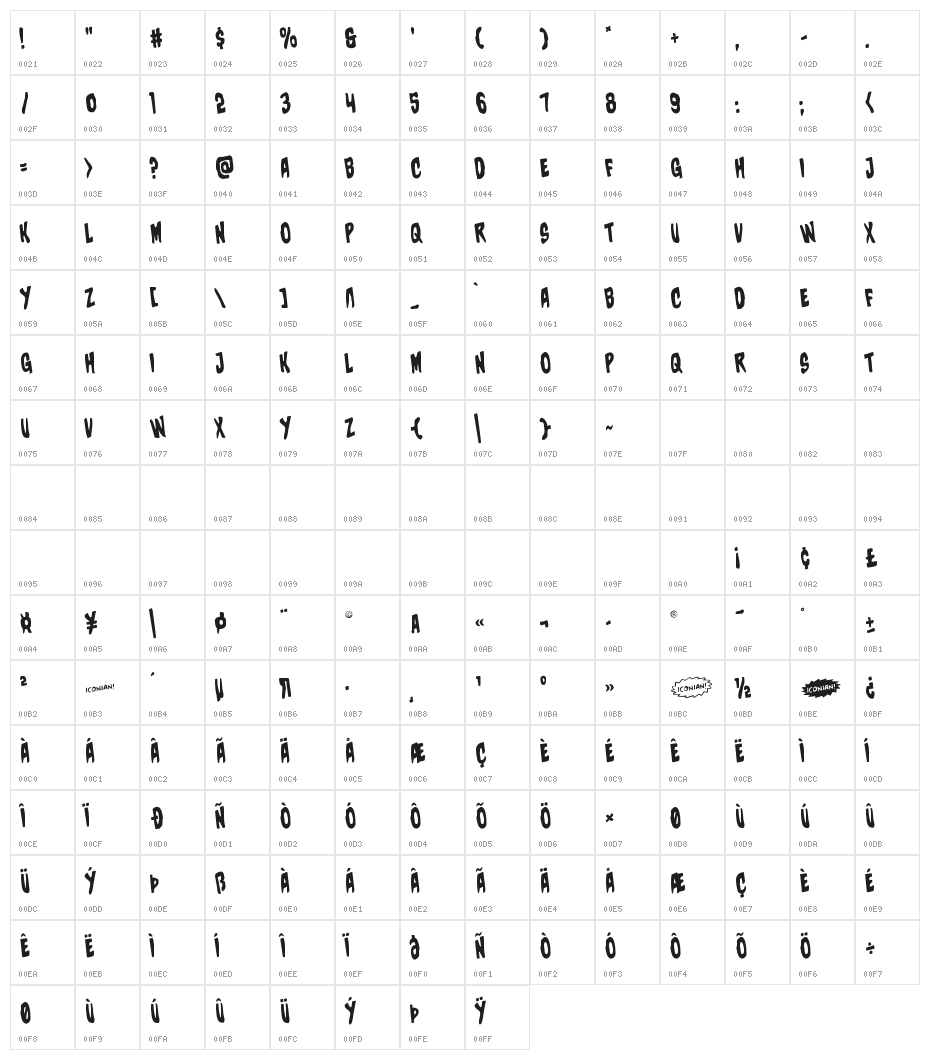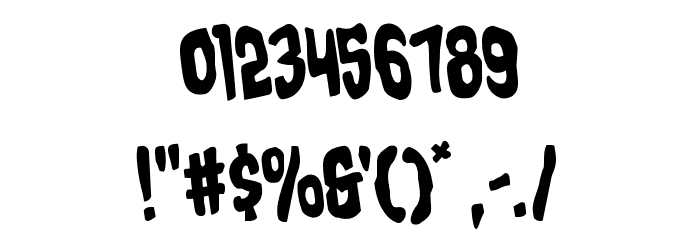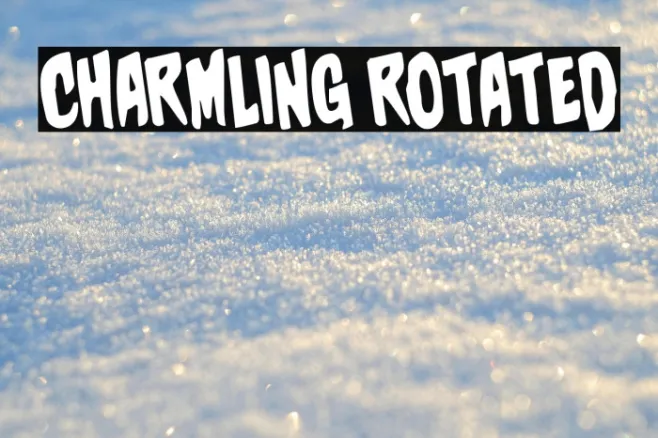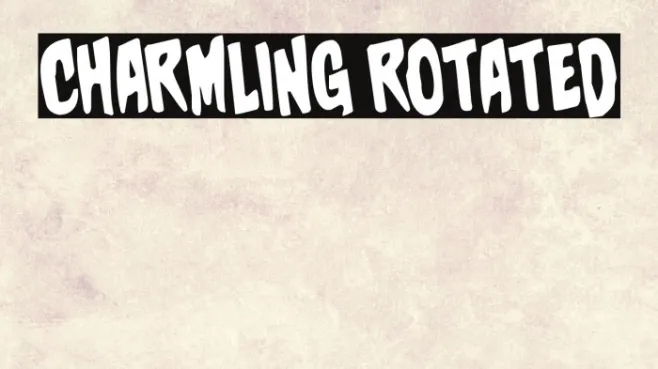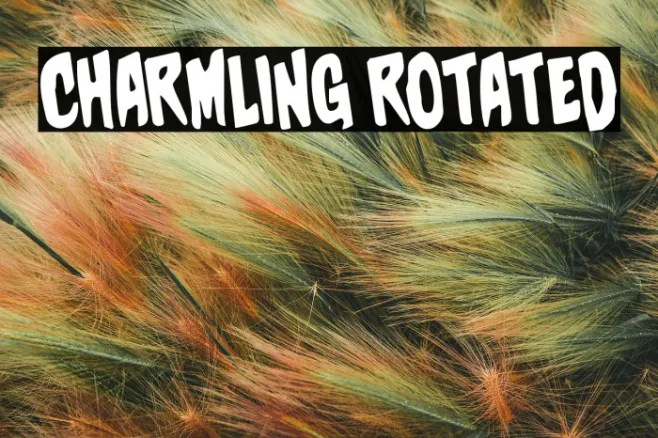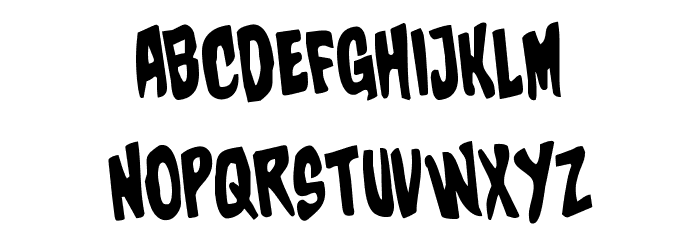
Charmling Rotated Font
Charmling Rotated Description
This font features a playful and dynamic style with a slightly irregular and hand-drawn appearance. The characters are bold and have a whimsical quality, making them stand out with a unique charm. The strokes are thick and rounded, giving the font a friendly and approachable feel. The letters are slightly tilted, adding to the casual and informal vibe. This font is well-suited for creative projects that require a touch of fun and personality. It maintains readability while offering a distinctive look that captures attention.